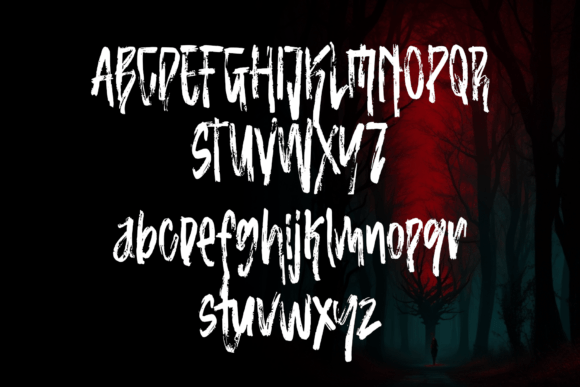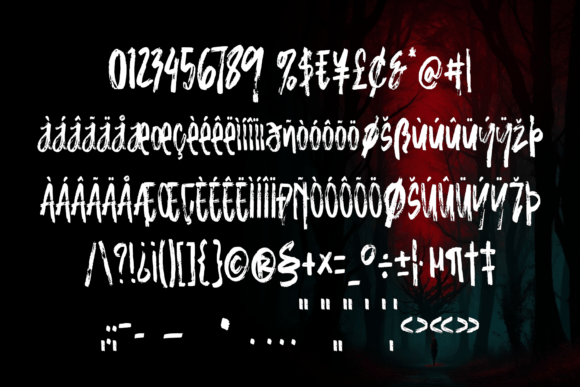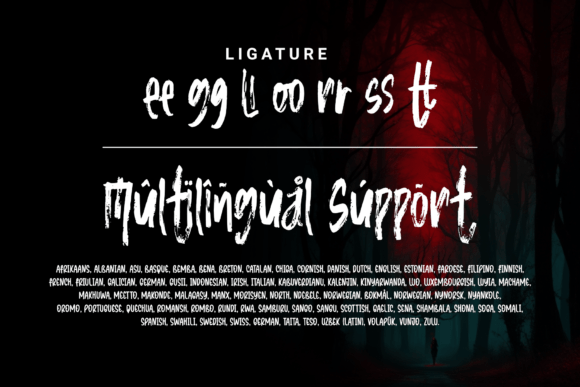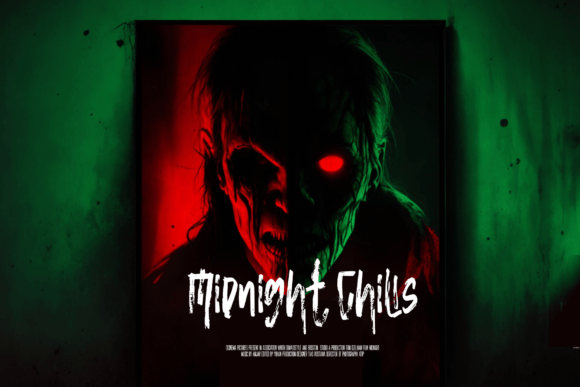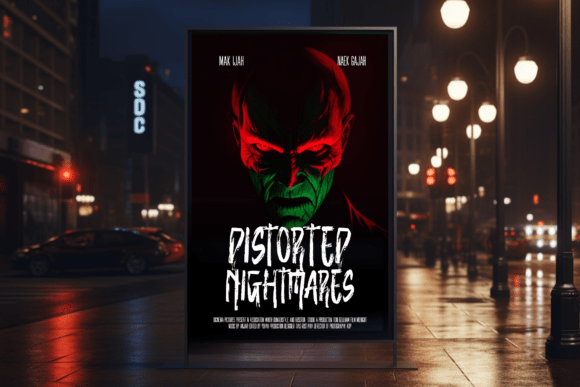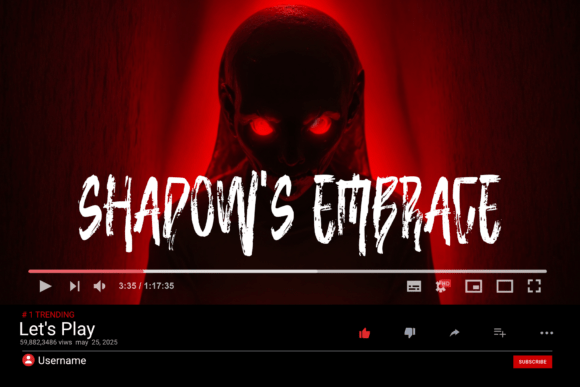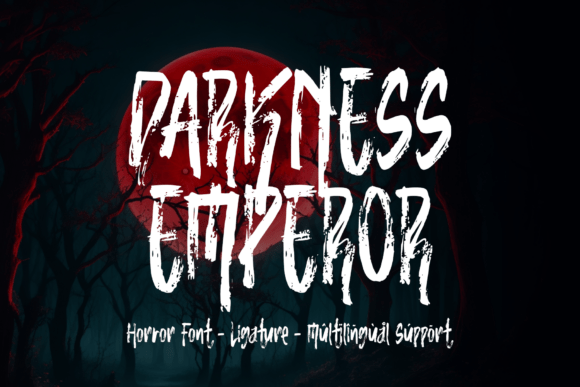
Unleash the Horror with Darkness Emperor Font: A Spine-Tingling Creation for Designers
In the realm of visual storytelling, fonts play a pivotal role in setting the tone and atmosphere of a design. For those seeking to craft eerie and suspenseful content, the Darkness Emperor Font emerges as a chilling solution. This brush Procreate creation is specifically designed to embody horror, making it an ideal choice for horror posters, designs, films, logos, and events.
The Essence of Darkness Emperor Font
Darkness Emperor Font is more than just a typographic creation; it’s an experience. Its strokes are carefully crafted to send shivers down the spine, evoking a sense of fear and suspense. The font’s design is characterized by its ominous and haunting appearance, making it perfect for those delving into the dark side of visual storytelling.
Key Features of Darkness Emperor Font
- Standard Glyphs: Includes a comprehensive set of characters for versatile use.
- Ligature: Offers unique and aesthetically pleasing connections between letters.
Applications of Darkness Emperor Font
The versatility of Darkness Emperor Font makes it suitable for a variety of applications, including:
- Horror Posters and Designs: Instantly evoke a sense of horror and suspense.
- Films and Movies: Perfect for title sequences, promotional materials, and more.
- Logos: Create a lasting impression with a logo that embodies the essence of horror.
- Events: Add an eerie touch to event posters, invitations, and branding.
Why Choose Darkness Emperor Font?
For designers and crafters looking to infuse their work with a spine-tingling aesthetic, Darkness Emperor Font is the ultimate choice. Its unique design, compatibility with various platforms, and extensive language support make it a valuable asset in the world of visual storytelling.
Darkness Emperor Font is not just a font; it’s a tool for creators to weave tales of horror and suspense. With its chilling strokes and ominous presence, it’s set to become a staple in the designer community. Whether you’re crafting a horror film title, a haunting event poster, or simply looking to add a touch of the supernatural to your designs, Darkness Emperor Font is your gateway to the dark side of visual storytelling.